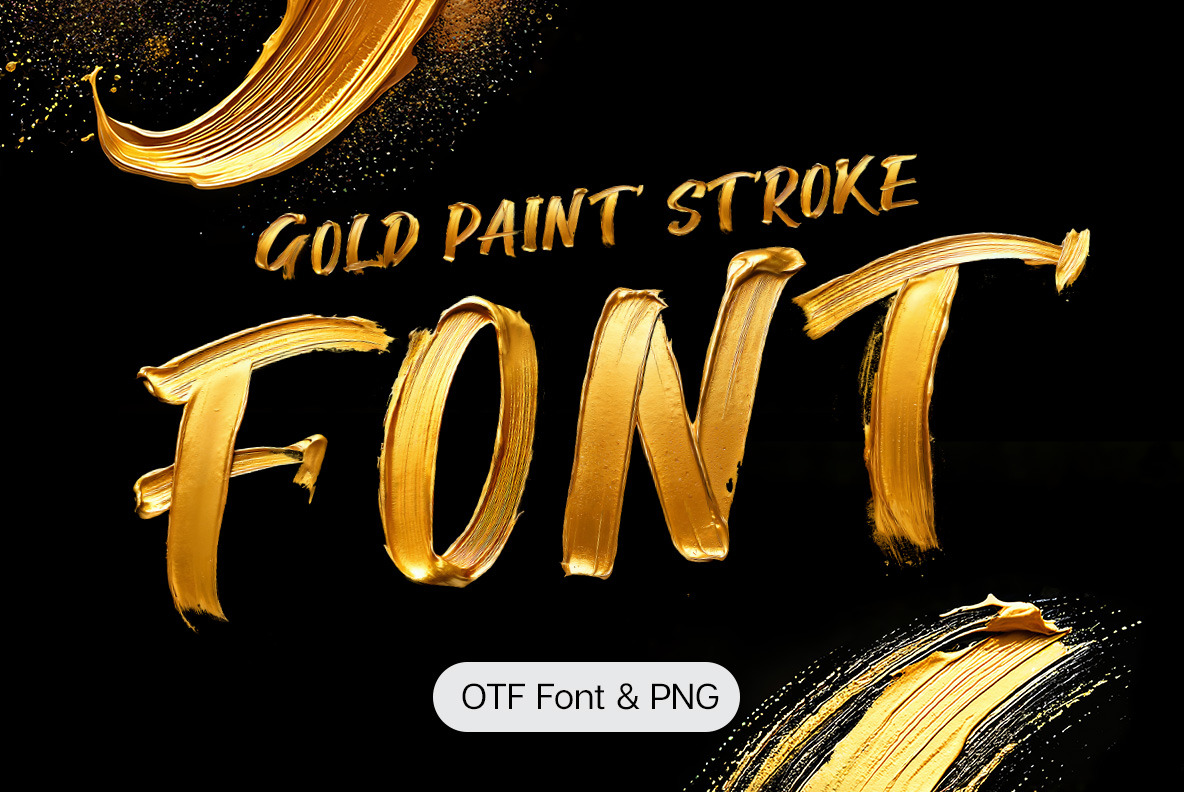
Gold Paint Stroke Font
Elevate your designs with the Gold Paint Stroke Font—a luxurious typeface that drips with elegance. Each letter is a hand-brushed masterpiece, shimmering with metallic gold strokes. Perfect for making bold, creative statements in branding, invitations, or logos. Bring a touch of artistic flair and opulence to your typography with this one-of-a-kind, high-definition OpenType font.
A high definition OpenType Font. Contains uppercase characters, numerals and basic punctuation. (Draw height roughly 800 pixels). All letters and glyphs that comprises this font you can see on the preview.
- Letters : A B C D E F G H I J K L M N O P Q R S T U V W X Y Z
- Numbers : 0 1 2 3 4 5 6 7 8 9
- Others : ! ? - . ' $ € % @ &